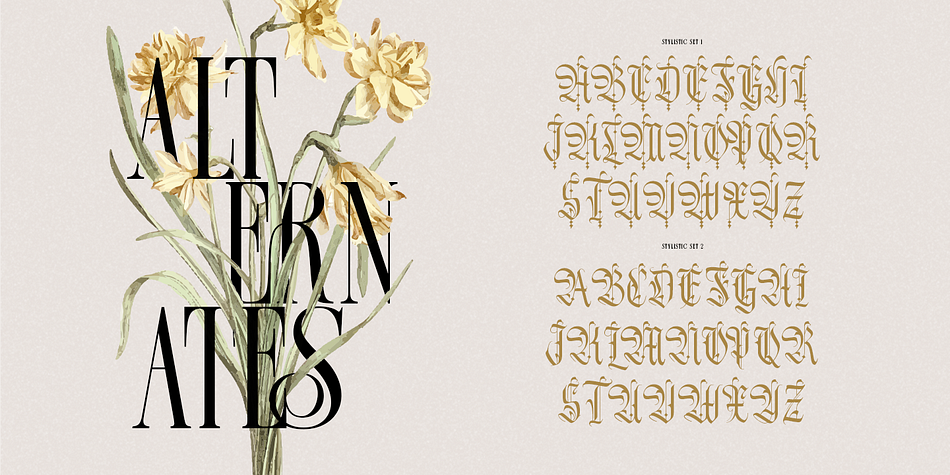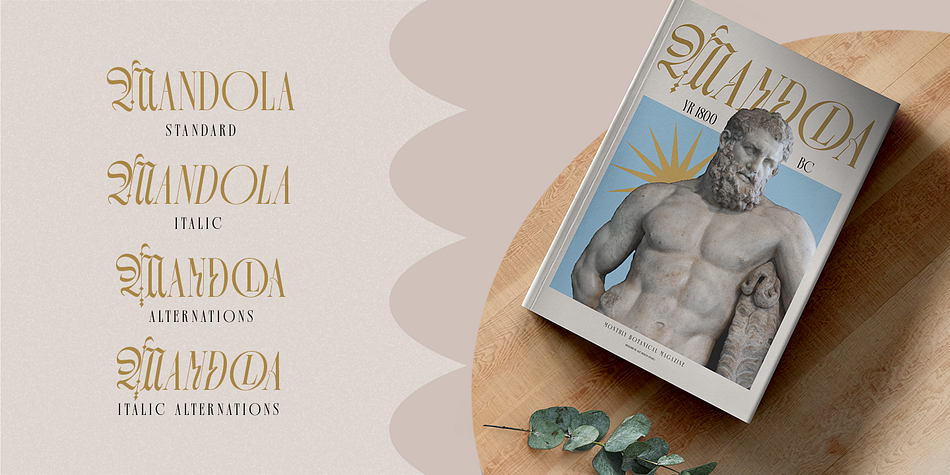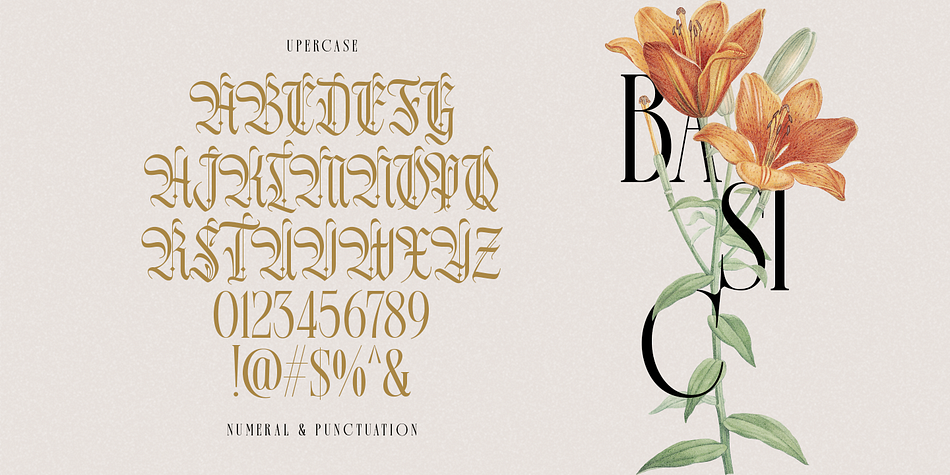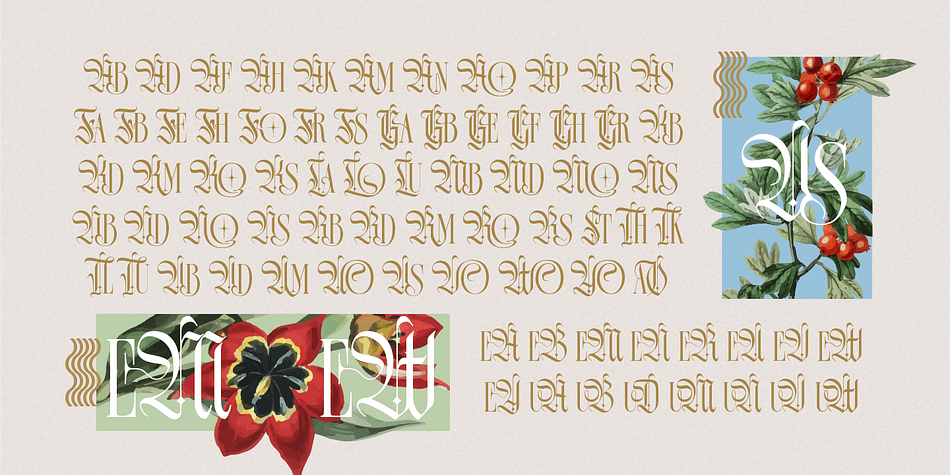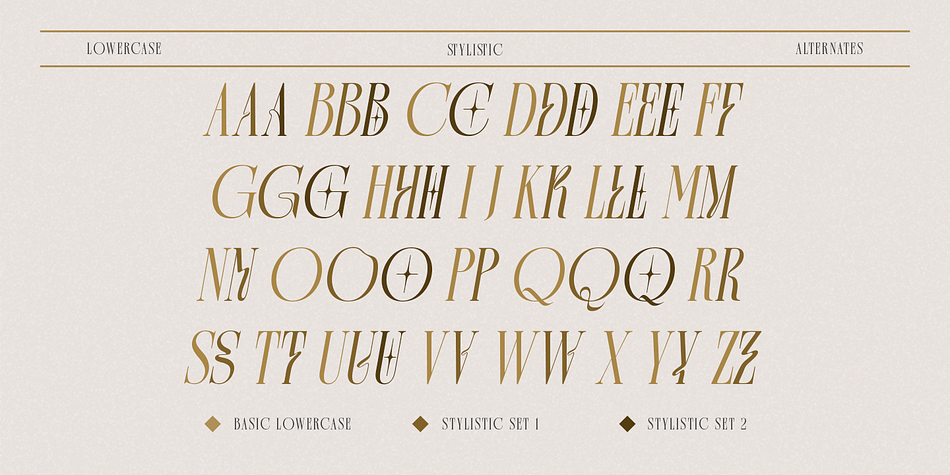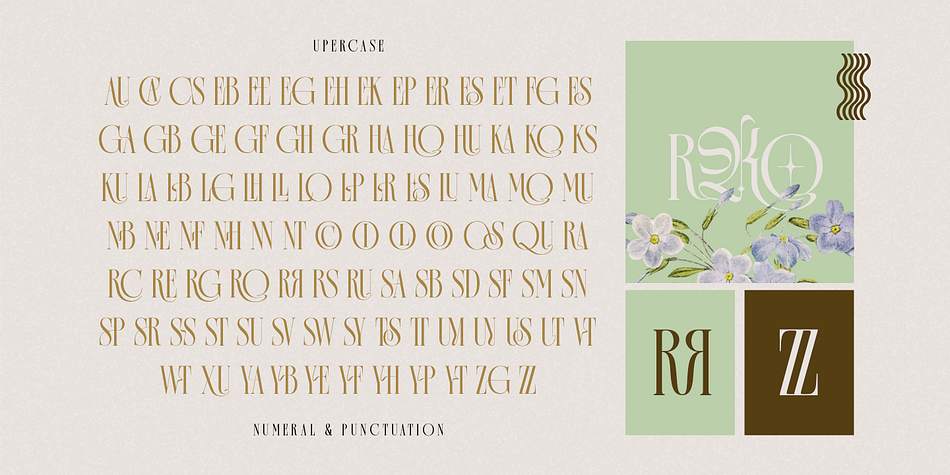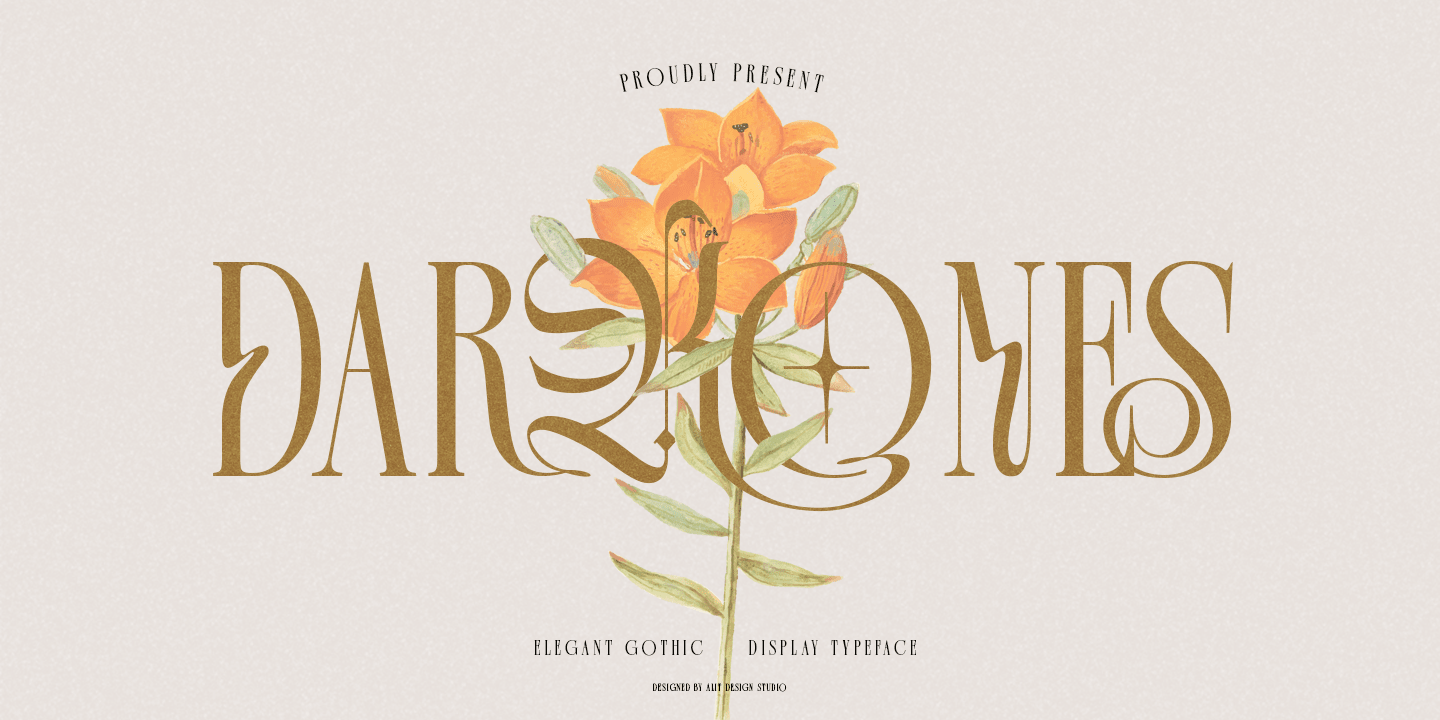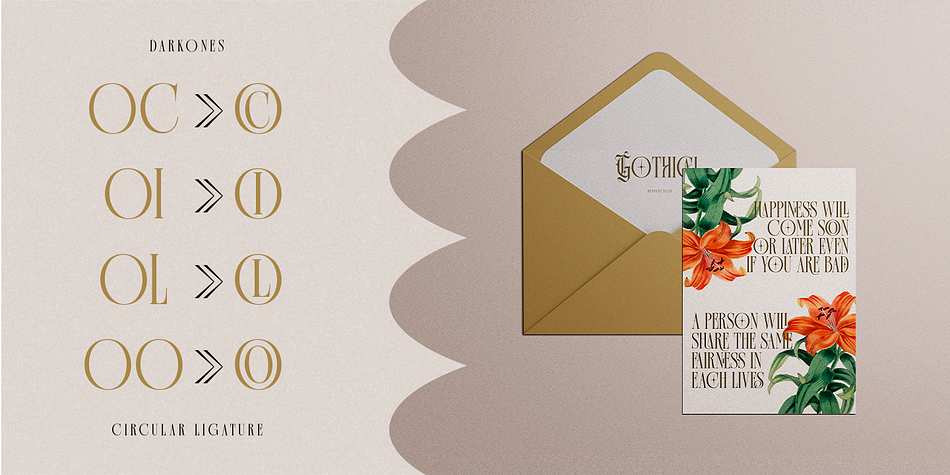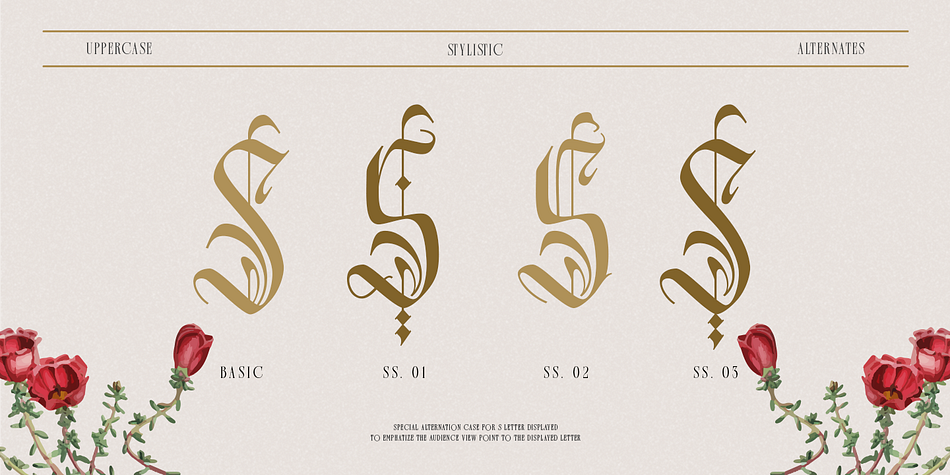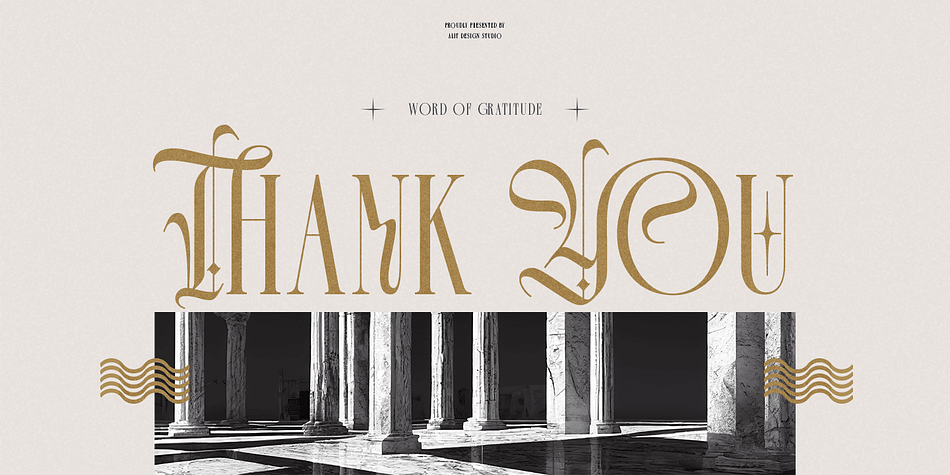
Darkones
Designed by Alit Suarnegara, Darkones is a blackletter and display serif font family. This typeface has two styles and was published by Alit Design.
The “DARKONES” font is a unique combination of blackletter and dynamic serif styles, making it perfect for magazine designs, tattoo art, socoal media ads and clothing. It features a total of 756 characters, including swashes, special ligatures, and alternative characters.
This font is designed to support PUA unicode and is multilingual, allowing it to be used for various projects in different languages. Its distinct and bold appearance makes it an excellent choice for designs that require a strong and edgy look.
Overall, the “DARKONES” font is a versatile and expressive typeface that can add character and personality to any project it is used for.